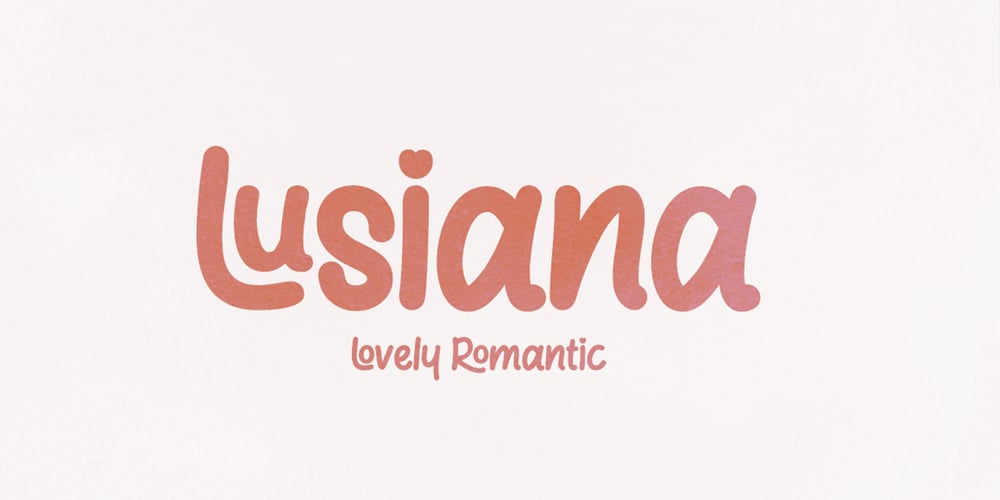
Lusiana
Lusiana font
Lusiana Font Family was designed by Afri Giani and published by Gian Studio. Lusiana contains 1 styles and family package options. Lusiana Handwritten font with unique and cute letters – with smooth texture built in! Perfect for standout quotes, funny branding, children’s books, quirky greeting cards and so much more!To access alternative glyphs, you’ll need a program that supports OpenType features such as Adobe Illustrator CS and Adobe Indesign.How to use the open type feature https://helpx.adobe.com/illustrator/using/special-characters.html